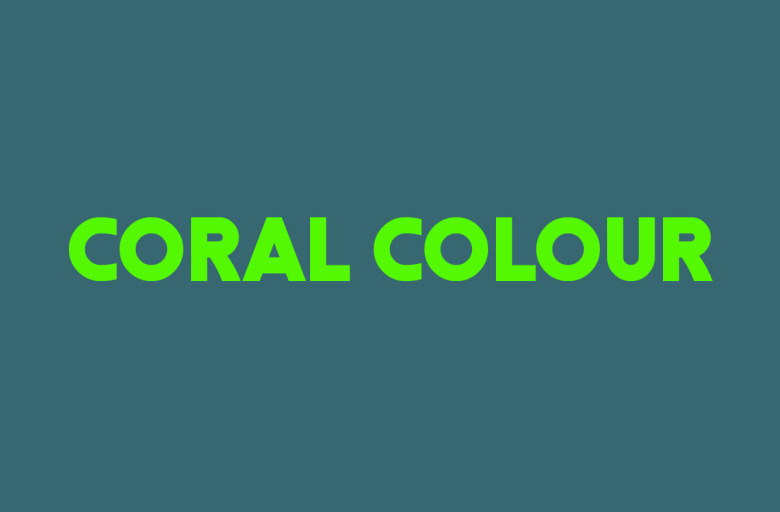
Coral Colour Font
Coral Colour is a high quality Sans Serif font that is designed by Chequered Ink and is available for free download and personal use. The free version provides all uppercase and lowercase letters and a few special characters too.
Coral Colour Sans Serif Font